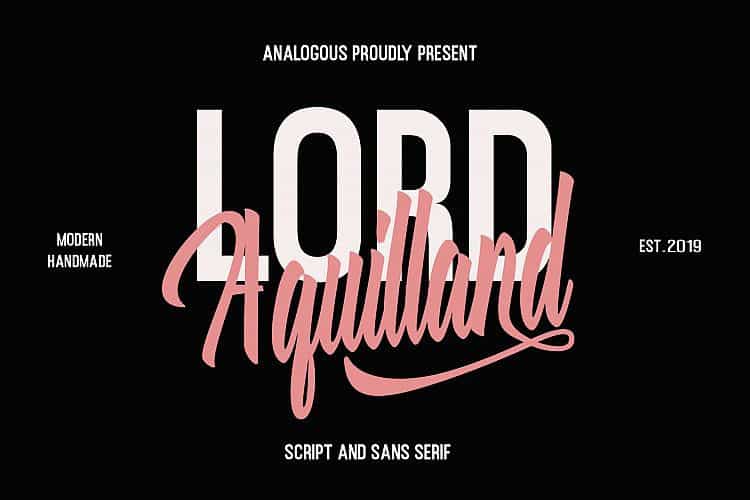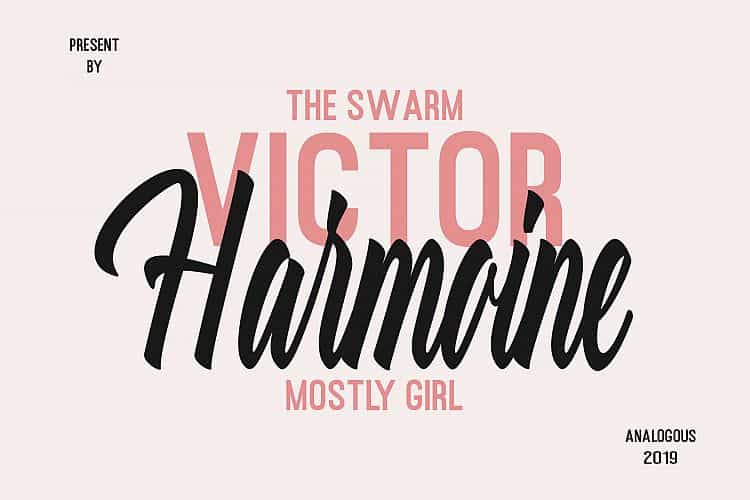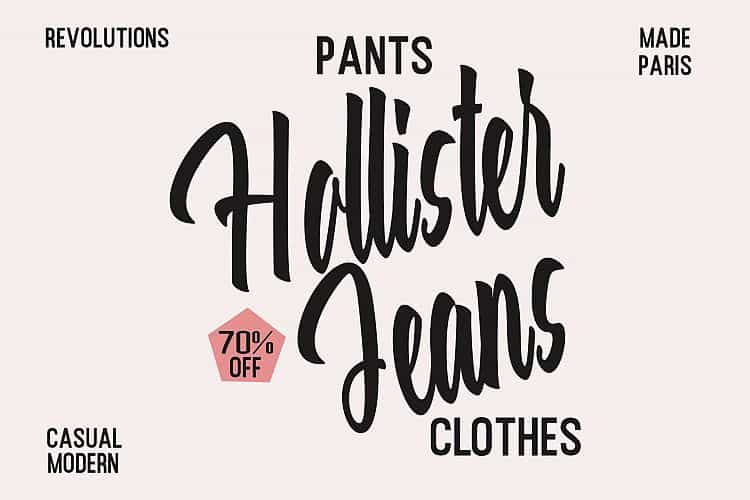
Discover Aquilland Font Duo, part of the Sans Serif Calligraphy collection—a versatile and unique font perfect for adding a personal touch to your projects. Download it for free and enjoy crafting designs with style, from invitations to social media posts. This font is available exclusively for personal use, giving you the freedom to create without limits. Unlock your creativity with Aquilland Font Duo today!
Introducing Aquilland, a Modern Classy font, Strong styles and Circle Movement. allowing you to create hand lettering is an instant. Aquilland is a collective modern font combination. Come 3 families with uppercase and lowercase, stylistic set, ligature, alternates, multilingual, etc to mix and match your design. This font is perfect for your design, logo, label, badges, apparel design, etc.